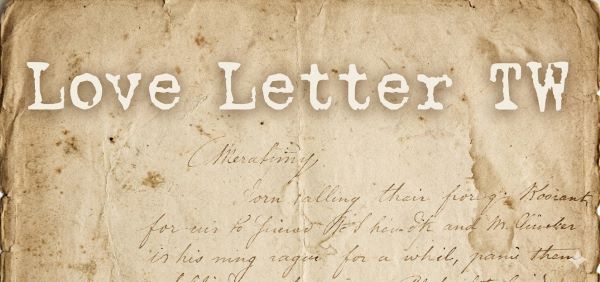
Love Letter TW Font
Love Letter TW Font by Dixie’s Delights is a free romantic typewriter font with a soft, intimate character — its slightly uneven letterforms evoking handwritten correspondence typed with care on a beloved machine, making it a typewriter font perfectly suited to love letters, wedding stationery, Valentine’s designs, personal journals, and any project where the typography needs to feel tender and personal. Available as shareware — check included files for licensing terms.